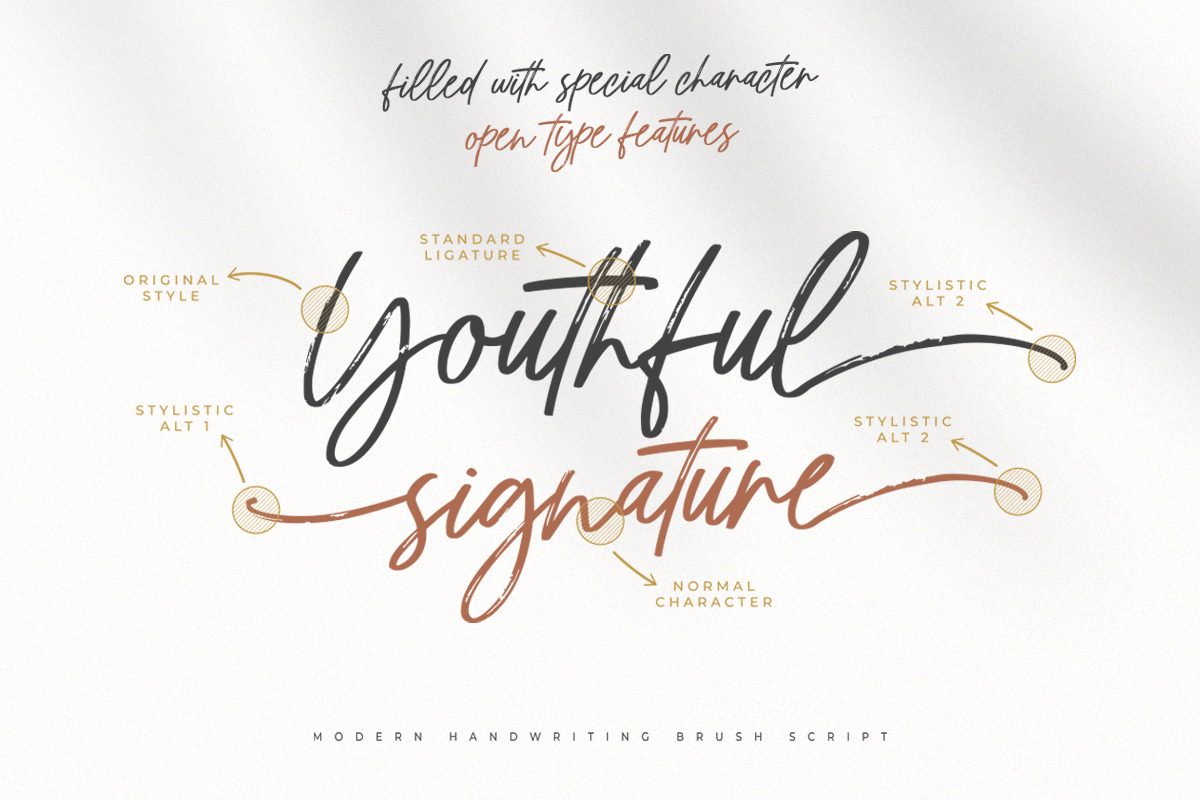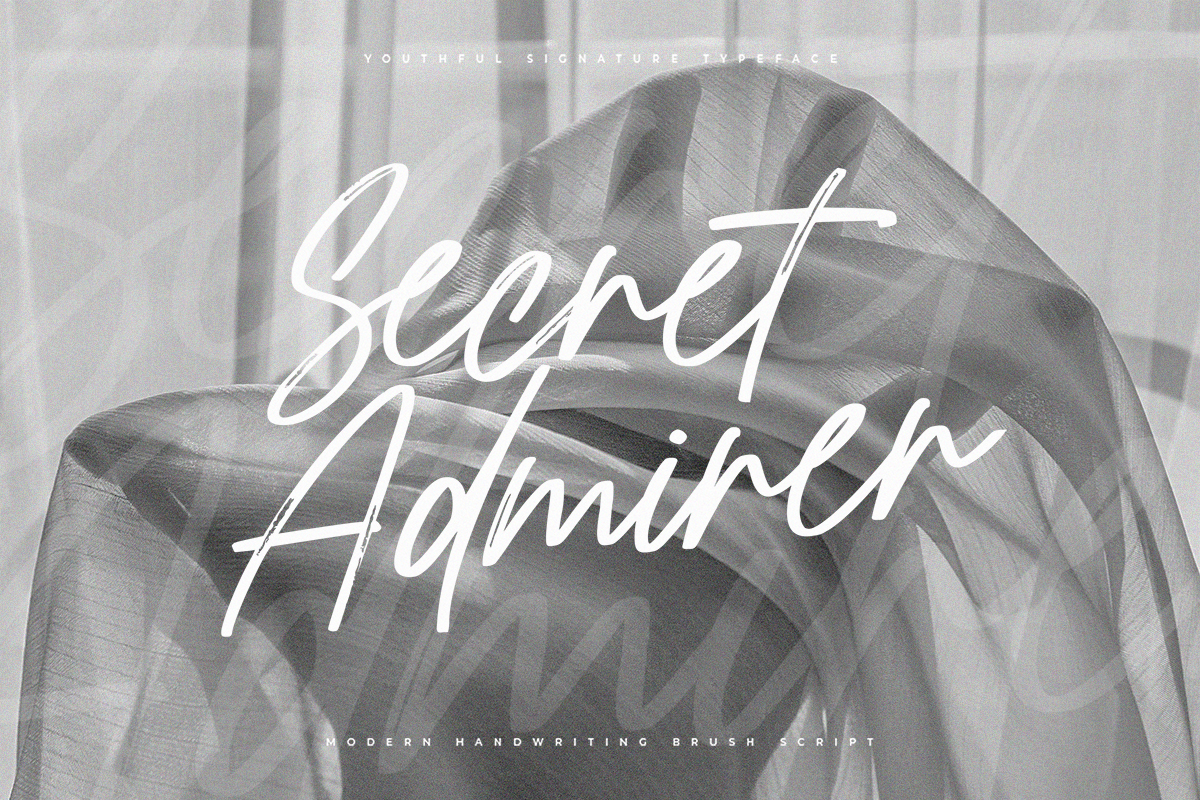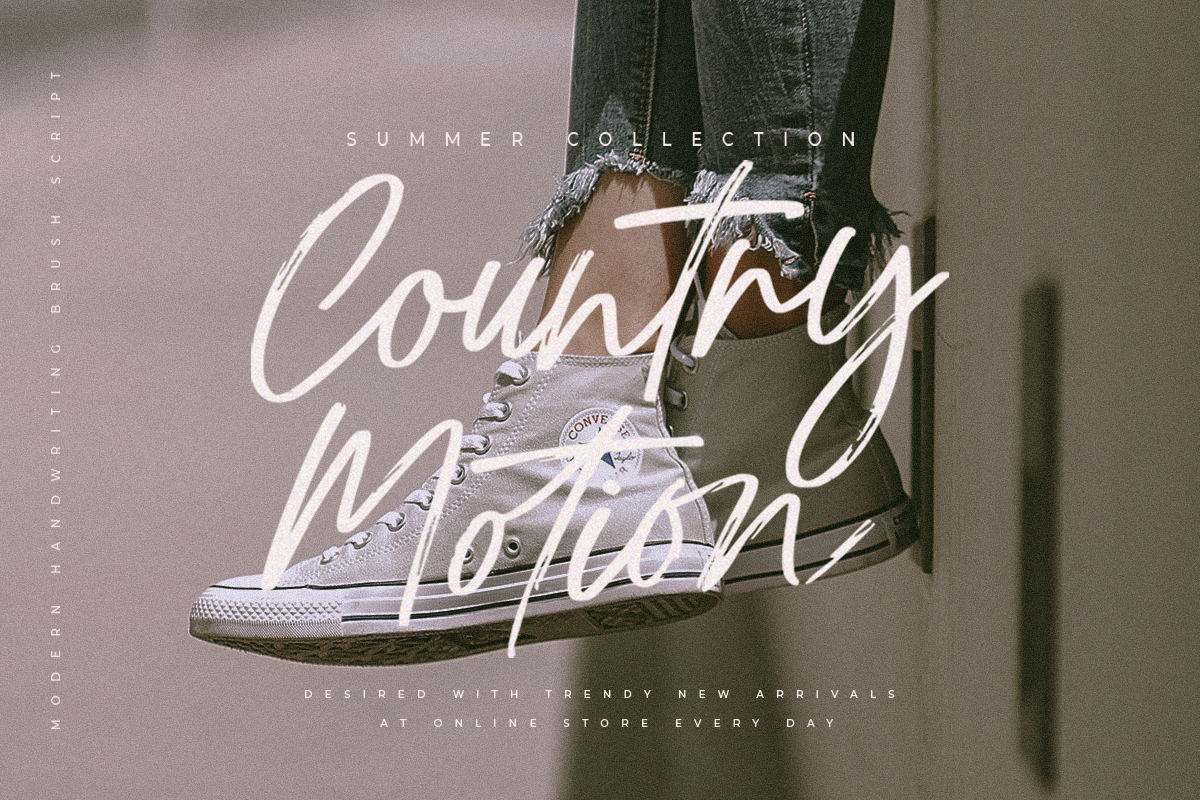
Youthful Font
Youthful Script Font
This Is Signature Script Font Inspired By Handwritting Characters. Create unique & beautiful logotype, use it as an elegant solution for your next magazine layout, or choose Neima for any graphics that require a sleek look with a elegant flair.